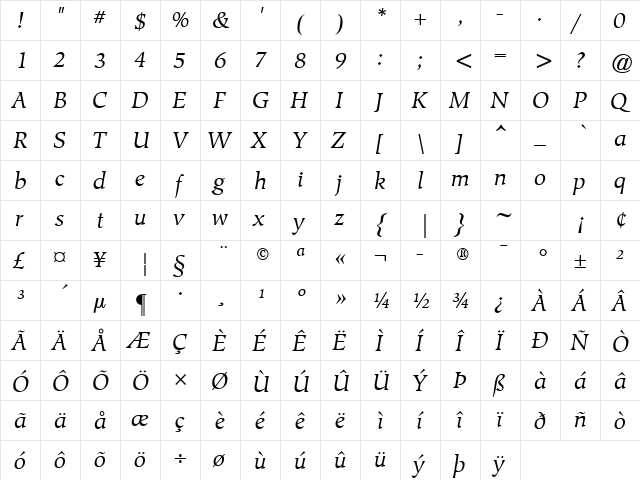
Hiroshige ATT Italic
Design Context for Hiroshige ATT Typeface
Hiroshige ATT is a composed and adaptable typeface that performs quietly and consistently across a wide range of design contexts. The slanted form adds forward momentum and visual energy.
Pro Tip: Try Hiroshige ATT for annotation and caption copy alongside an upright companion — the contrast in angle creates a dynamic but ordered typographic system.